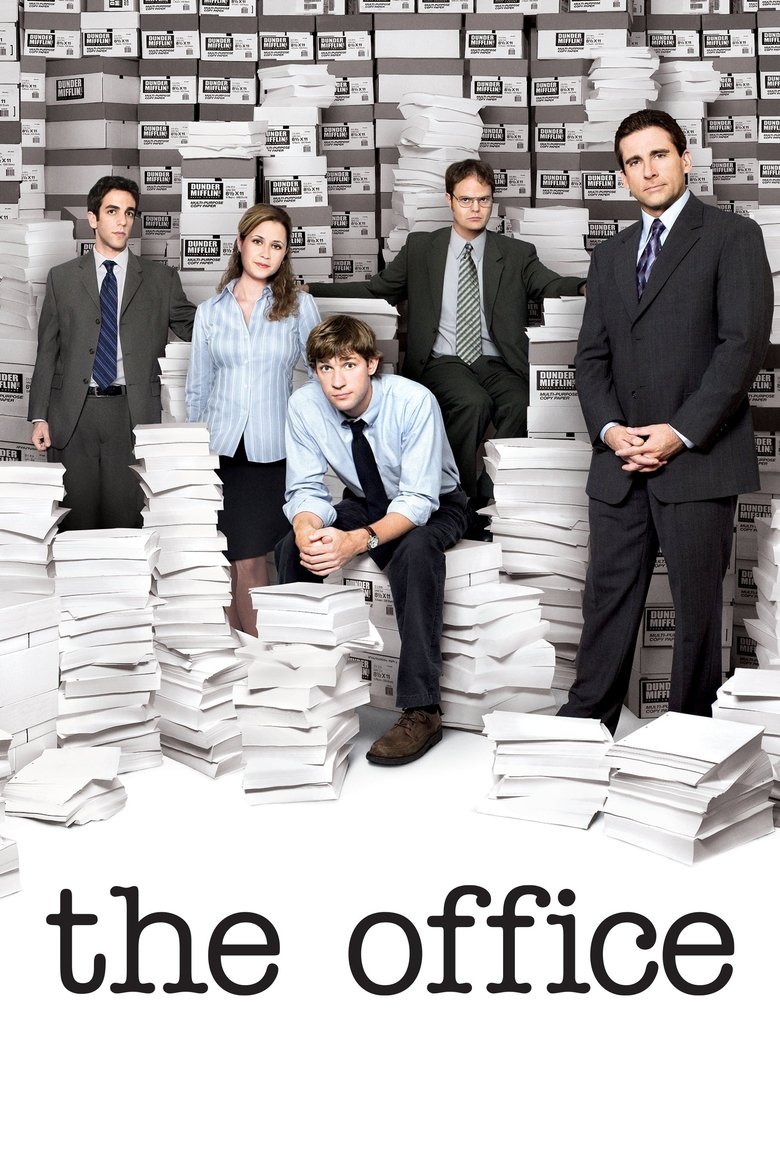
About the The Office font
The Office logo is a plain, corporate sans. Oswald recreates that dry, mundane office-park feel for free.
What font is used in the The Office logo?+
The original The Office logo uses custom lettering. This generator recreates the look with Oswald — a free, open-license font you can style and download.